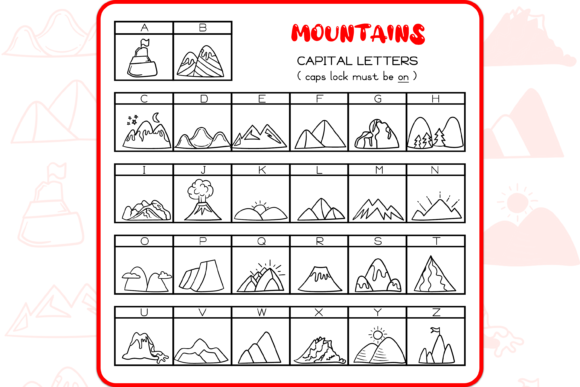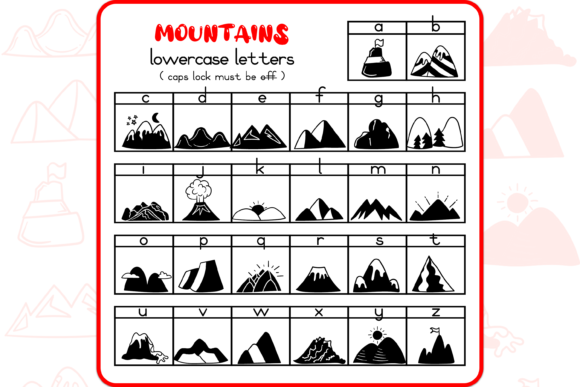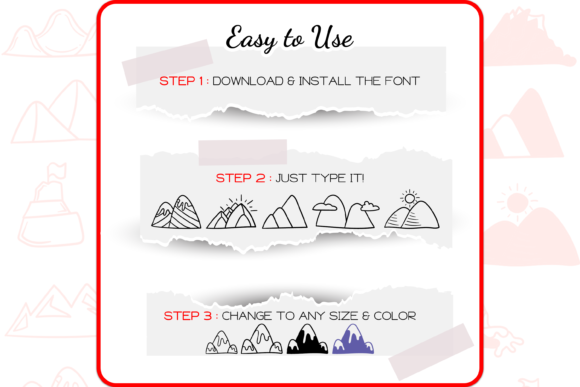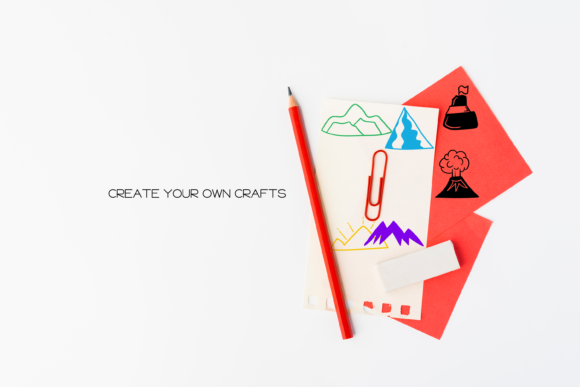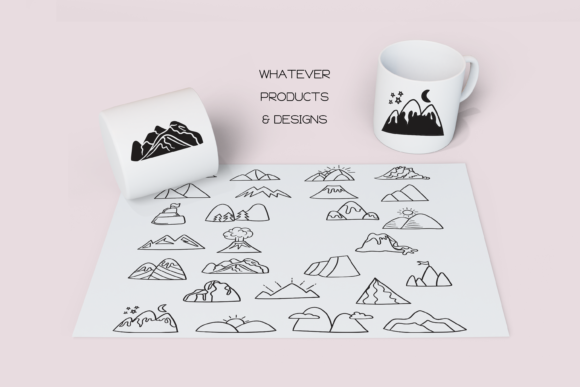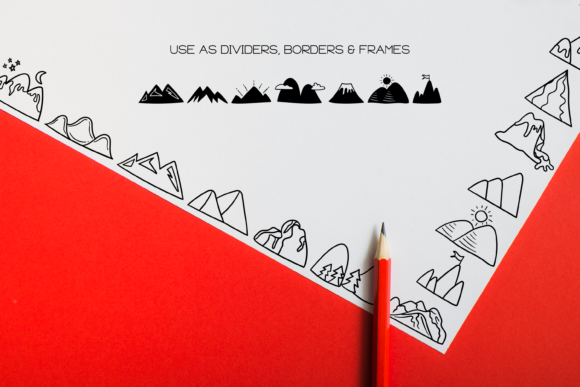
The Mountains Font
About The Mountains Font
The Mountains Dingbats font is a charming collection of 52 hand-drawn doodles inspired by mountains and natural landscapes. This unique and cute font can add a touch of adventure and serenity to your creative ideas. Here are some ways you can use The Mountains Dingbats font to make your arts outstanding:
1. Outdoor Adventure Designs: If you’re working on designs related to hiking, camping, or outdoor activities, The Mountains Dingbats font is a perfect addition. Use the mountain doodles to create borders, dividers, or decorative elements that evoke a sense of exploration and natural beauty. The symbols can include different mountain ranges, trees, tents, and other elements associated with outdoor adventures.
2. Travel Illustrations: Incorporate The Mountains Dingbats font into your travel-inspired artwork to create captivating visuals. Use the doodles as decorative elements or incorporate them into illustrations representing scenic landscapes, road trips, or iconic mountain views. The intricate and whimsical mountain symbols can add depth and charm to your travel-themed designs.
3. Nature-themed Branding: If you’re working on branding projects for nature-based businesses or eco-conscious initiatives, The Mountains Dingbats font can be a valuable resource. Use the mountain doodles to create logos, icons, or patterns that reflect the beauty and majesty of the natural world. The symbols can help establish a visual identity that resonates with environmentally conscious audiences.
4. Posters and Prints: Create stunning posters or prints using The Mountains Dingbats font. Incorporate the mountain doodles as focal points or as decorative elements that complement your artwork. Whether you’re designing inspirational quotes, motivational artwork, or nature-themed illustrations, the mountain symbols can add a touch of wonder and awe to your designs.
5. Outdoor Event Decorations: If you’re organizing outdoor events such as weddings, festivals, or nature retreats, The Mountains Dingbats font can be a great asset for decorations. Use the mountain doodles to create banners, invitations, signage, or table settings. The symbols can enhance the overall theme and create a serene and captivating ambiance for the event.
6. Nature-inspired Social Media Content: Stand out on social media platforms by incorporating The Mountains Dingbats font into your content. Use the mountain doodles to create eye-catching posts, story highlights, or profile covers. The symbols can add a touch of tranquility and connection with nature, making your content visually appealing and engaging.
Don’t be afraid to experiment with different sizes, colors, and arrangements of the mountain doodles to suit your specific design needs. The versatility of The Mountains Dingbats font allows you to create unique and outstanding arts that celebrate the beauty of natural landscapes.
In summary, The Mountains Dingbats font offers a collection of hand-drawn mountain doodles that can enhance your creative ideas. Whether you’re designing outdoor adventure projects, travel-inspired artwork, or nature-themed branding, this font allows you to infuse your arts with the majesty of mountains. So go ahead, let your creativity soar, and make your arts outstanding with The Mountains Dingbats font!